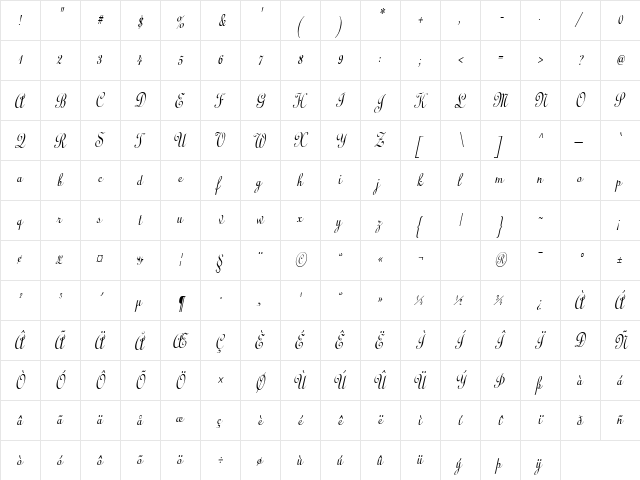
CathedralCondensed Italic
Design Context for CathedralCondensed Typeface
CathedralCondensed is a composed and adaptable typeface that performs quietly and consistently across a wide range of design contexts. The slanted form adds forward momentum and visual energy. Its narrow stance lets it pack a punch even in space-constrained designs.
Pro Tip: Try CathedralCondensed for annotation and caption copy alongside an upright companion — the contrast in angle creates a dynamic but ordered typographic system.